31 Best Sci-Fi Fonts (Science and Retro Styles)
31 of the Best Sci-Fi Fonts
1. Casiopeia Sci-Fi Futuristic Font YR (OTF, TTF, WOFF)
Our list of the best sci-fi fonts starts with the stylish Casiopeia. Each glyph has an interesting angle that evokes a futuristic mood. Every letter looks unique yet remains readable, making Casiopeia one of the best science fiction fonts for apparel, logos, and more.
2. Codevein: Sci Fi Computer Screen (OTF, TTF, WOFF)
Codevein: Sci Fi Computer Screen goes further than sci-fi lettering. The added decorative elements in each glyph transport this font to another universe, one firmly in the future. Space-themed projects across different types of media can benefit from the flair Codevein provides.
3. Ornacle Sci-Fi Futuristic Font (OTF, TTF)
Ornacle is another science fiction font with a futuristic edge. The sharp lines of its glyphs are complemented well by small decorative touches. You can easily install the sci-fi looking font on both Mac and PC, making Ornacle a great option for just about every designer.
4. Centauri Galaxy Space Fonts (OTF, WOFF)
Next up is Centauri Galaxy Space Fonts, a bold sci-fi futuristic font that brings a cool edginess to your projects. The clean, minimalist font includes uppercase Latin letters, numbers, and basic punctuation, as well as alternate letters. Stunning in its simplicity, Centauri earns its spot on this list of the best sci-fi fonts.
5. Dreamscape Retro Sci Fi Font (TTF)
Check out this beautiful sci-fi futuristic font, Dreamscape Retro Sci Fi Font. You'll love this science fiction font's two styles, Dreamscape and Dreamscape Sans. Use it to create eye-catching sci-fi logos, poster designs, album covers, or T-shirts.
6. UAV31 Science Fiction Font (OTF)
If you need highly legible text, UAV31 shouldn't be your first choice, but if your text is short and simple, then this retro sci-fi font is a great choice. Stylish and attention-getting, this decorative geometric font is great for logos, posters, and other short titles when impact is what matters. The updated Art Deco style is an attention-grabber.
7. Kusanagi: Futuristic Science Fiction Font (OTF, WOFF)
Take Kusanagi for a spin and create visually engaging text for your next project. This awesome sci-fi futuristic font mixes sharp and round corners and uses narrow spacing between letters to accommodate the wide characters. It's a perfect font for titles, posters, and various covers.
8. SKYWAVE Sci-Fi Font (OTF, TTF, WOFF, WOFF2, EOT, SVG)
Looking for a clean and modern font for branding projects, titles, and display text? Then the Skywave sci-fi looking font is a great choice. The vintage sci-fi font comes in four weights—light, normal, bold, and heavy—with additional italic and outline versions in all weights.
9. Cyber Sci Fi Text (OTF, TTF, WOFF)
How about Cyber Sci Fi Text, a sci-fi font inspired by digital technology? Use this all-caps font to create your sci-fi logos, movie titles and posters, flyers, website headers, and more. Give this modern science fiction font's lettering a try for your next project.
10. Polygon Technology Science Fiction Font (OTF, TTF, WOFF)
Looking for an awesome sci-fi futuristic font for a unique sci-fi logo? Check out Polygon, an abstract grid technology typeface with a futuristic feel. This all-caps science fiction display font is an excellent choice for large-scale projects.
11. Voyager Sci-Fi Lettering Typeface (OTF, WOFF)
Voyager is a retro sci-fi font with a rounded aesthetic. It's great for sci-fi logos and UI elements. Voyager comes with alternate characters that can be toggled with caps lock and includes two weight options. Basically, you're getting multiple science fiction fonts in a single download. The font family includes uppercase characters, numbers, punctuation, and some multilingual support.
12. Flare: Futuristic Science Fiction Font (OTF, TTF, WOFF)
This retro sci-fi font is all you need when you want to create stunning sci-fi logos, movie titles, posters, branding materials, and other stand-out media. With that Alien movie vibe to it, Flare is a perfect choice for technological, sci-fi, and all kinds of futuristic projects you can come up with.
13. Alpha Futuristic Display Typeface (OTF, TTF, WOFF)
Say hello to Alpha, a bold vintage sci-fi font for those times when no ordinary font will do. Use it to create riveting movie titles, posters, sci-fi logos, and other branding materials. The retro sci-fi font includes upper and lowercase letters, numbers, and punctuation.
14. Galaxy Sci-Fi Font (OTF)
Inspired by the cosmos, Galaxy is a cool font for sci-fi projects. Use it for your logos, posters, film titles, and advertisements, and take your projects to outer space.
15. Halcyon: Alien Movie Font (OTF, WOFF)
Looking for a font similar to that used in Alien? Halcyon Alien Movie Font is a great option. This elongated and rounded sci-fi futuristic font would look great on movie titles, posters, T-shirts, and much more. The type comes in two weights, and the alternate letters can be toggled using the caps lock.
16. Cebo Sci-Fi Futuristic Font (OTF, TTF)
Cebo is a sci-fi font for Photoshop and other popular software. It includes five different styles: light, twin, shadow, bold, and expand. The all-caps type is an excellent display font for posters, titles, logos, banners, and other large-scale projects.
17. Hyperion Typeface (OTF, WOFF)
Hyperion is a high-quality futuristic font for sci-fi projects, from film to book covers. The clean all-caps type includes three weights—light, regular, and bold—and you can access alternate characters by toggling the caps lock.
18. Stargaze Typeface (OTF, WOFF)
How cool is this 50s sci-fi font? It's the perfect choice when you need a big, bold, vintage sci-fi font for your movie titles, posters, branding projects, signage, etc. Stargaze includes uppercase Latin and foreign language letters, numbers, and punctuation.
19. Requiem Typeface (OTF, WOFF2)
Try Requiem if you want a sci-fi futuristic font that's alien in its design. This decorative typeface has function as well as form. You'll get a full set of upper and lowercase letters, numbers, and multilingual characters in this science fiction font.
20. Indofont Typeface (OTF)
Here's one of the best futuristic fonts with sci-fi lettering. The strokes are long and curved, which lends to its modern look. In this download, you'll get an OTF file that includes upper and lowercase glyphs.
21. Acentriz (OTF, TTF)
Next on our list of the best sci-fi futuristic fonts on Envato Elements is Acentriz. It's a bit of an eccentric typeface as well. It prefers dots to dashes, and mixes them well with other decorative elements. Try Acentriz if you want a sci-fi font that stands out in its minimalism.
22. Zeniq Sci-Fi Fonts (OTF, TTF)
When it comes to capturing that sci-fi aesthetic in your projects, you can't do better than Zeniq. This modern, clean, tech-inspired font offers four style variations: normal, hype, nano, and tech. Its flexibility makes it an excellent choice for logos and brand identity projects.
23. Futrons Retro Sci Fi Font (OTF, TTF, WOFF)
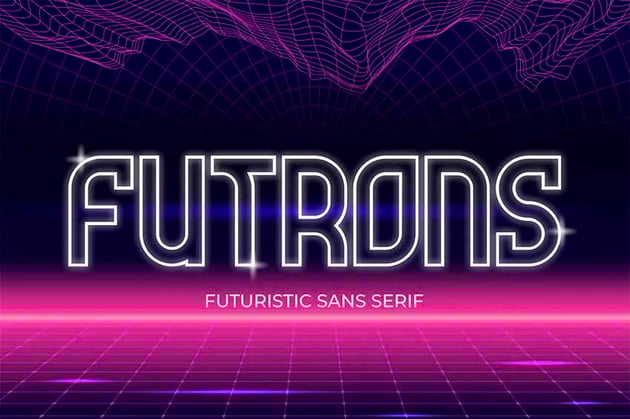
Sometimes clean, bold, and simple is all you need, and that's certainly what Futrons Retro Sci Fi Font has to offer. This vintage sci-fi font offers four styles and includes uppercase Latin and foreign language characters, numbers, and punctuation.
24. Rostave Galaxy Space Fonts (OTF, TTF, WOFF)
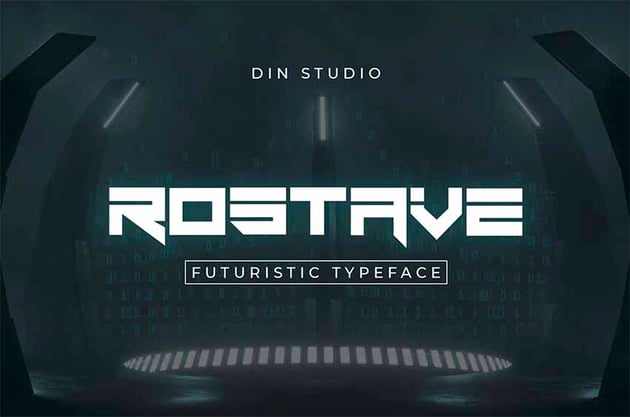
Rostave Galaxy Space Fonts offers a bold and futuristic addition to our list of sci-fi looking fonts. This stylish font includes uppercase Latin characters, numbers, punctuation, and several foreign language characters.
25. Equinox Typeface (OTF)
Equinox is a modern and simple sci-fi font for Photoshop and other software. It contains uppercase Latin and foreign language characters, numbers, punctuation, and alternate letters. Equinox comes in two weights of sci-fi looking fonts: regular and bold.
26. Evirma Futuristic Typeface (OTF, TTF)
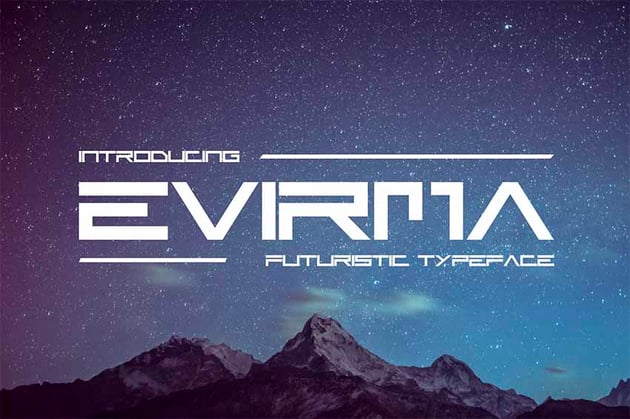
Check out Evirma Futuristic Typeface, one of those clean and simple sci-fi looking fonts that you won't be able to resist. Evirma is an excellent choice for a wide variety of projects, from titles to posters to websites.
27. Blank Space Bold Font (OTF, TTF, WOFF)
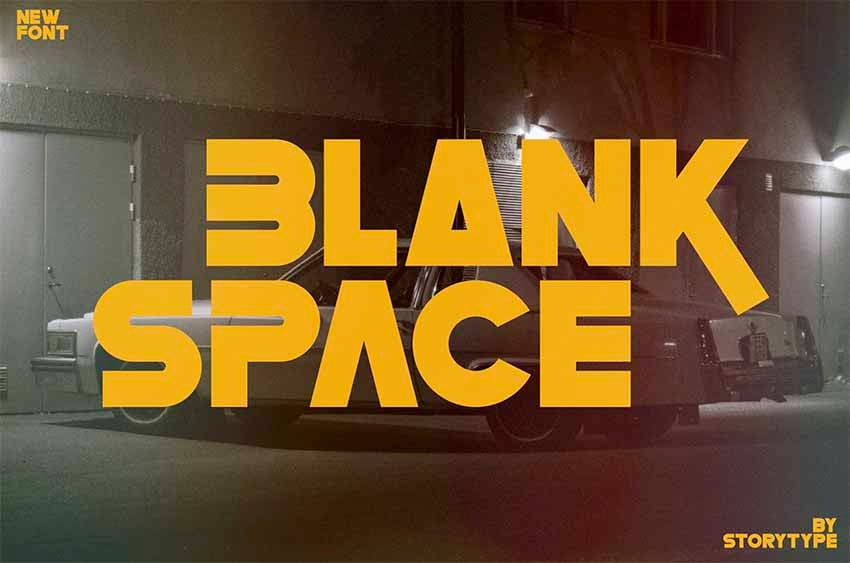
Not specifically a sci-fi font but certainly consistent with the sci-fi aesthetic, Blank Space is a bold and commanding font that captures the essence of a futuristic font design while preserving legibility.
28. Centurion Futuristic Font (OTF, TTF, WOFF)
Centurion Futuristic Font is a superb science fiction font that includes upper and lowercase characters, numbers, punctuation, and multilingual support.
29. Osiris Typeface (OTF, TTF)
Osiris Typeface is a fabulous sci-fi futuristic font that would look equally great used in larger or smaller sizes. This clean sans serif was inspired by the NASA font and offers uppercase characters, numbers, and punctuation. It's one of the best futuristic fonts for sci-fi titles, posters, T-shirts, branding, logos, etc.
30. Neurock Futuristic Font (OTF, TTF)
If you're looking for a sci-fi futuristic font for a book or movie title, Neurock is a great choice. This bold, eye-catching font is strong and solid and will stand out clearly to call attention where you most need it. It's just one of the outstanding sci-fi looking fonts you can find at Envato.
31. Stardock Futuristic Sci-Fi Fonts (OTF, TTF)
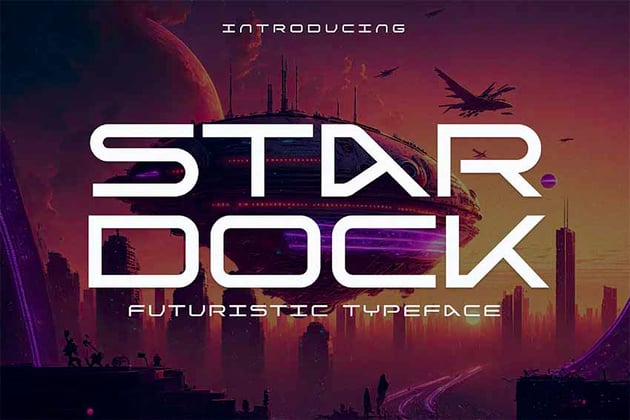
Inspired by science fiction movies and books, Stardock Futuristic Sci-Fi Fonts is a great choice for movies, posters, logos, labels, etc. This is a must-have for your design toolkit.